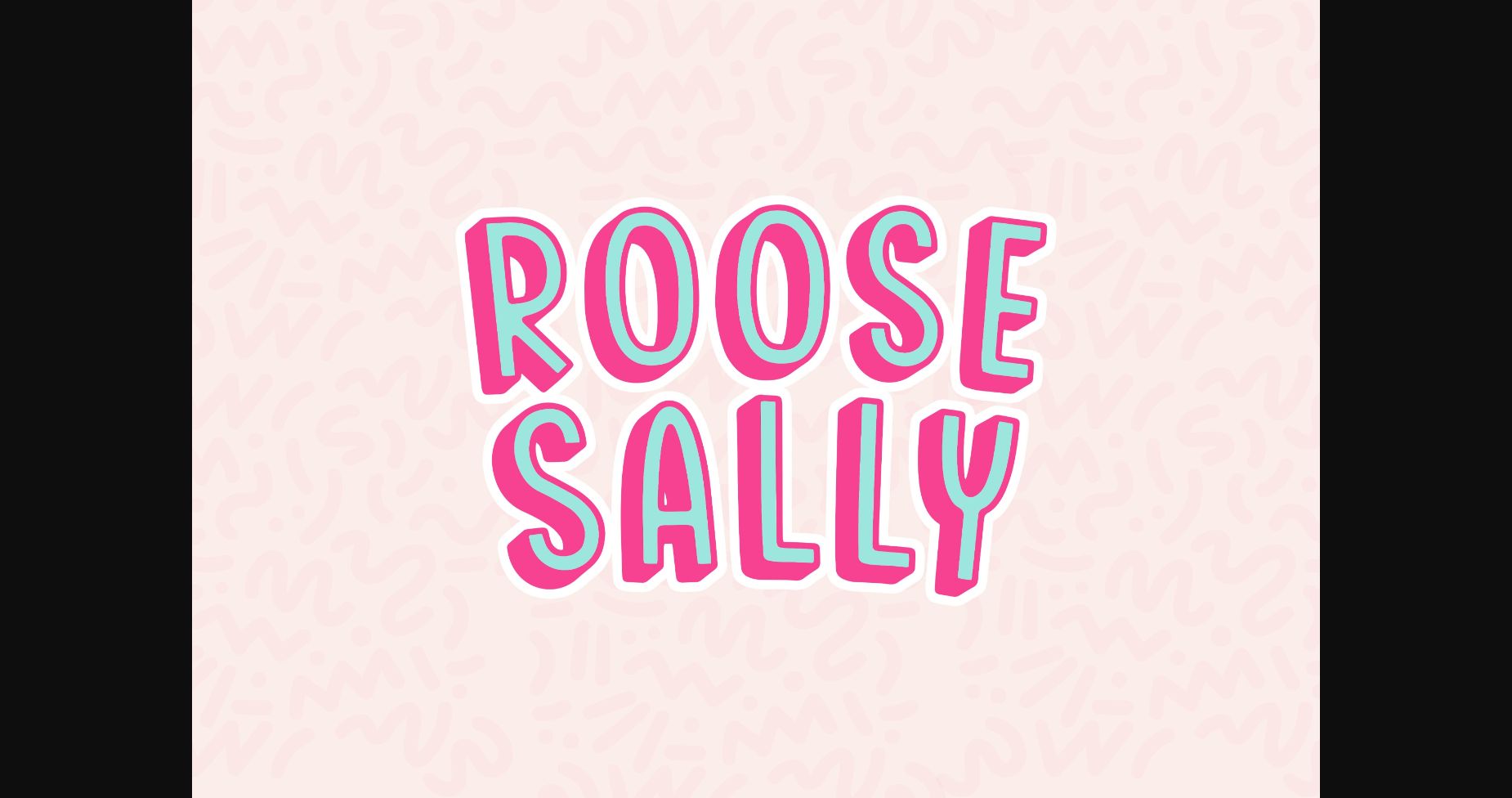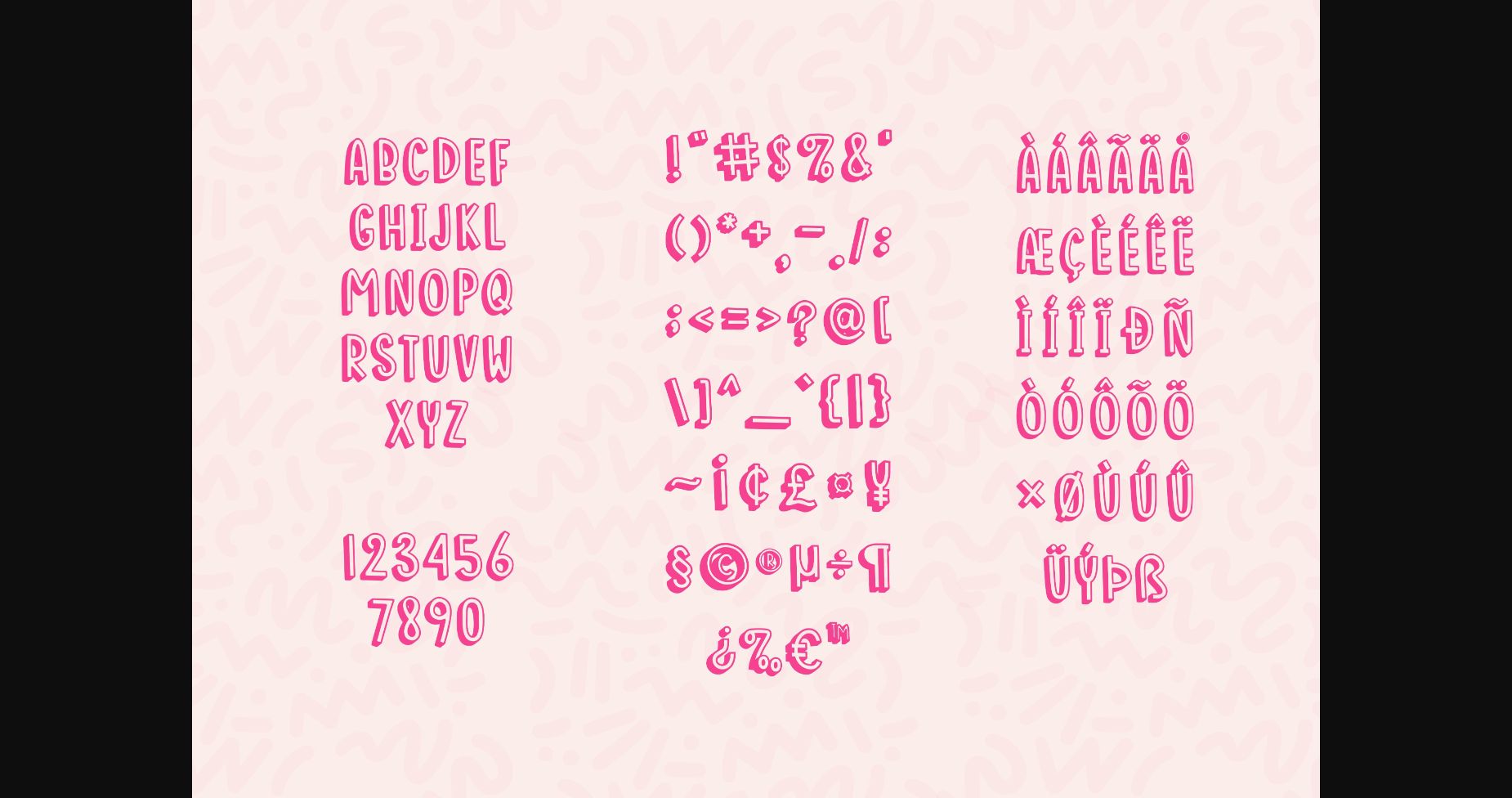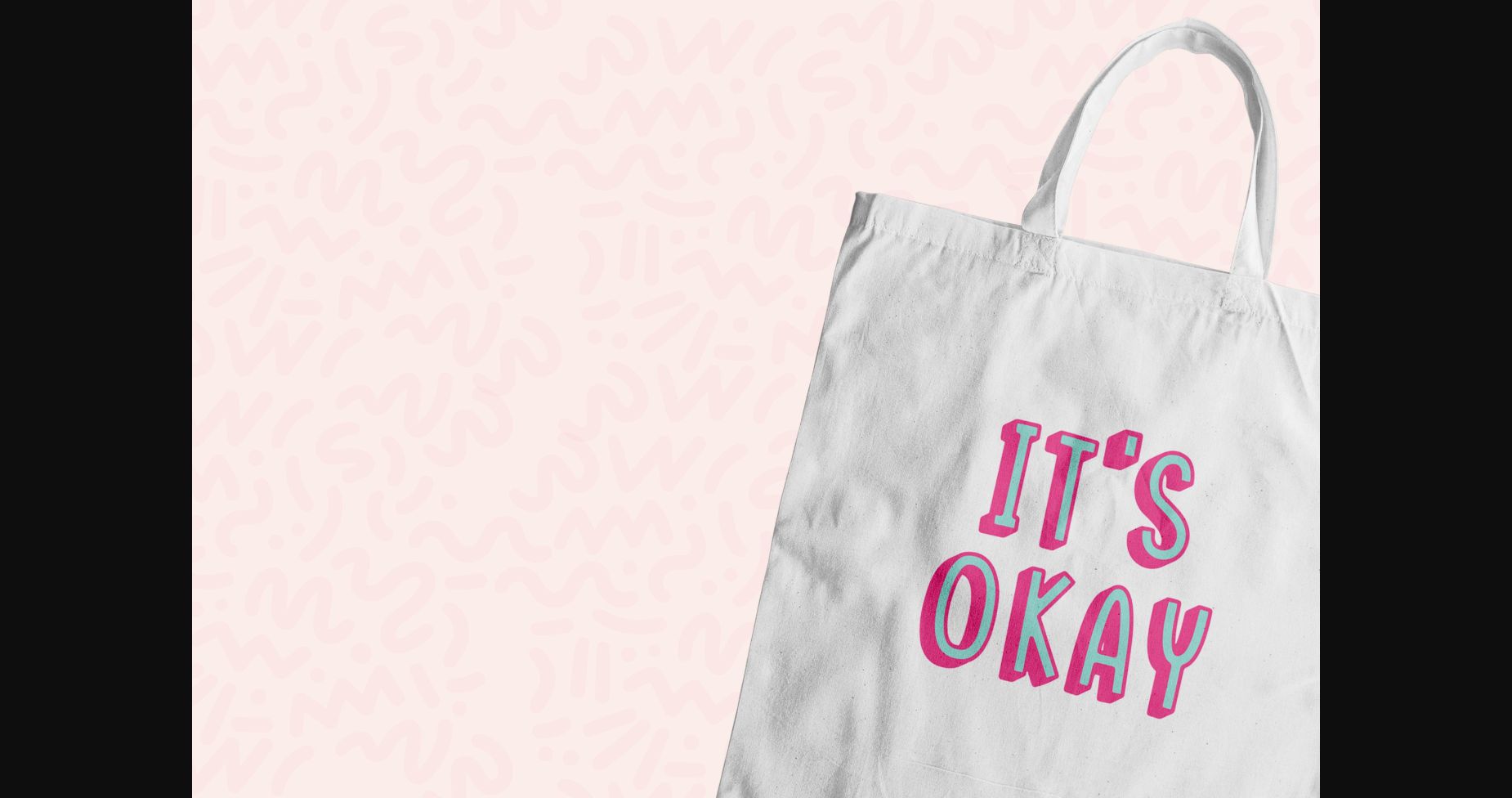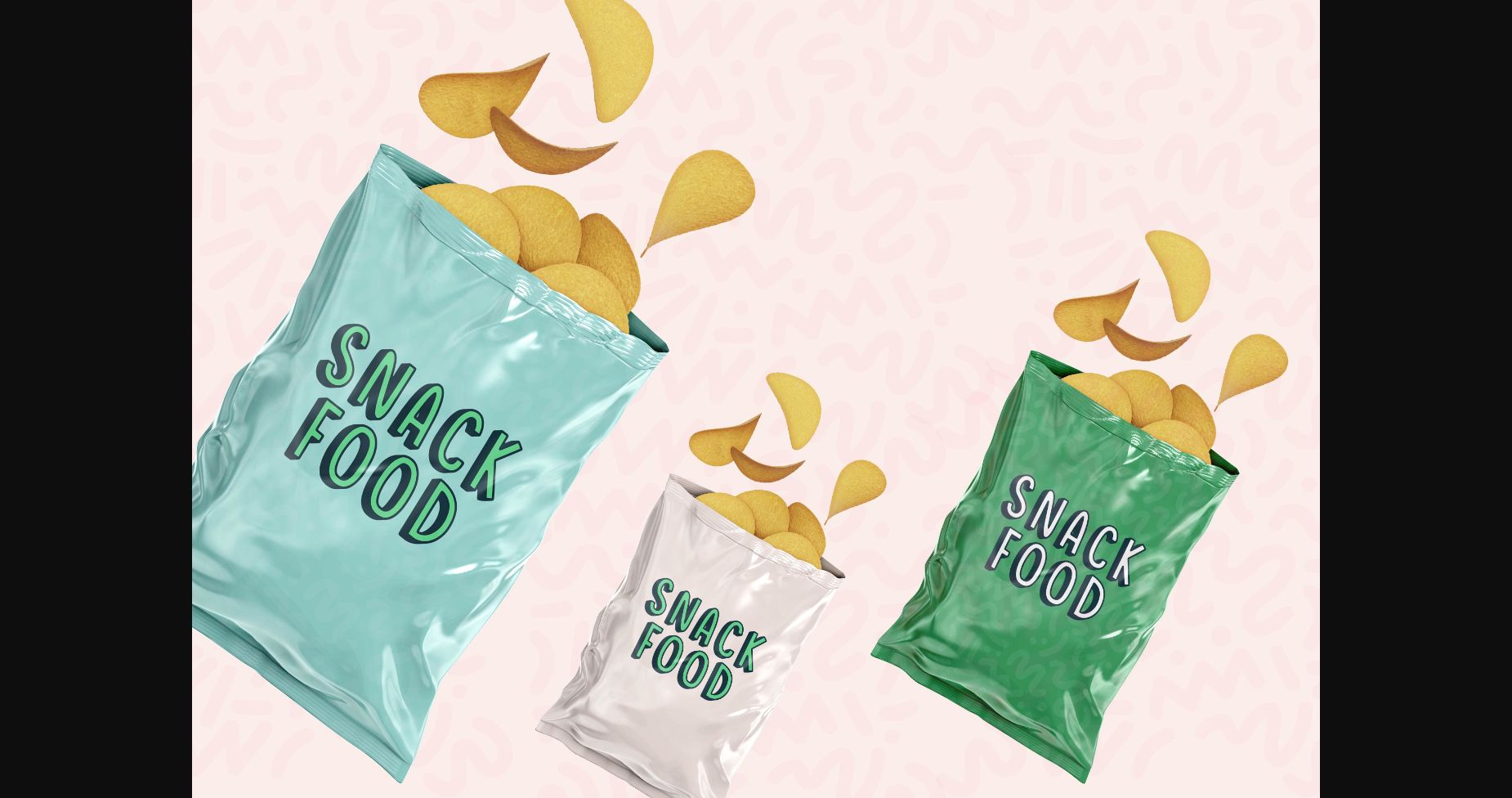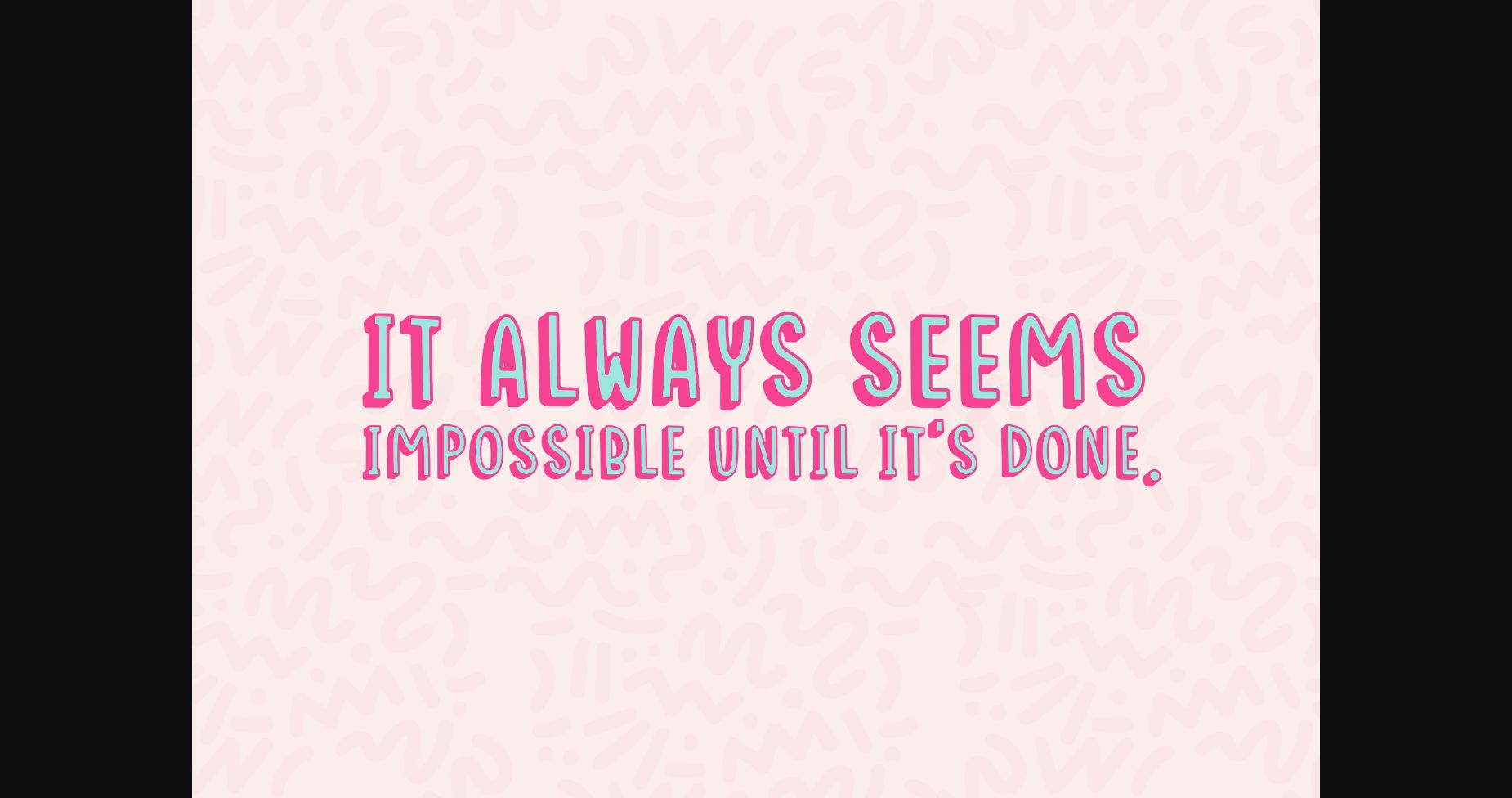
About Roose Sally Font
Roose Sally is a super fun, quirky, and child-themed sans serif typeface. Perfect for child-related projects, cute quotes, and so much more.